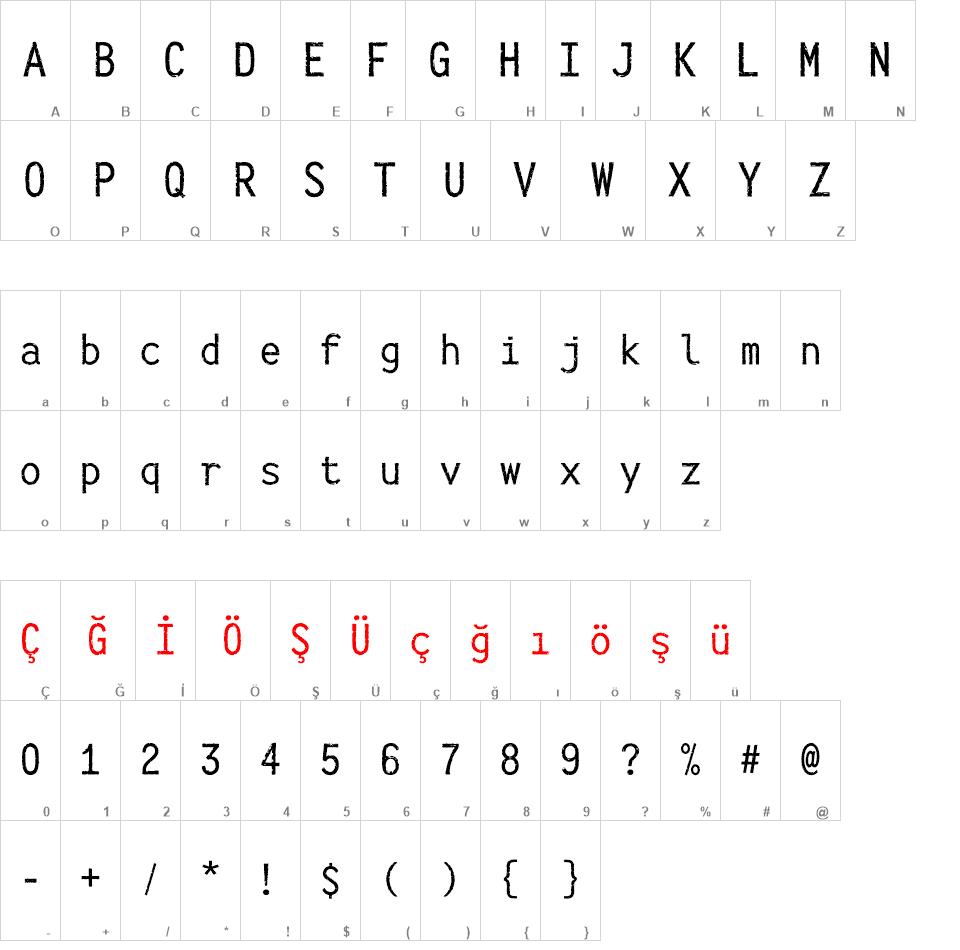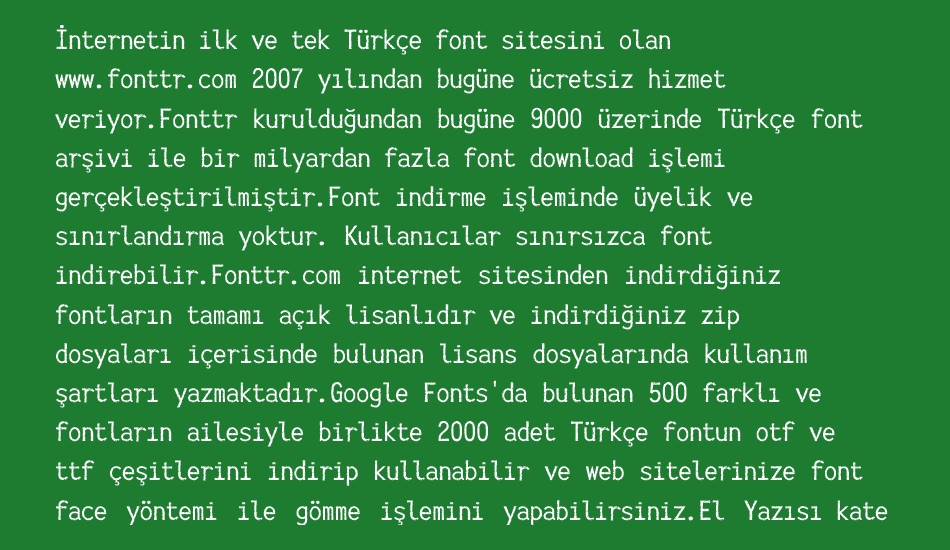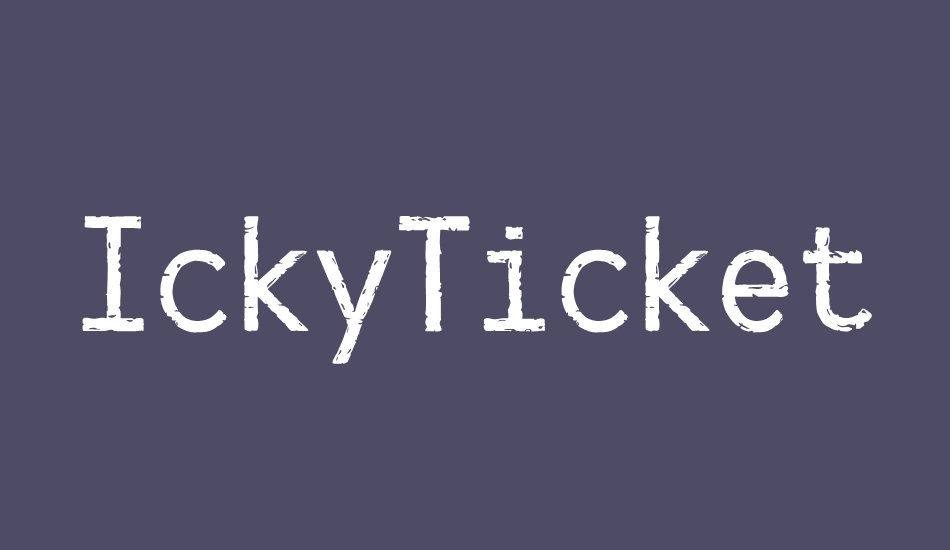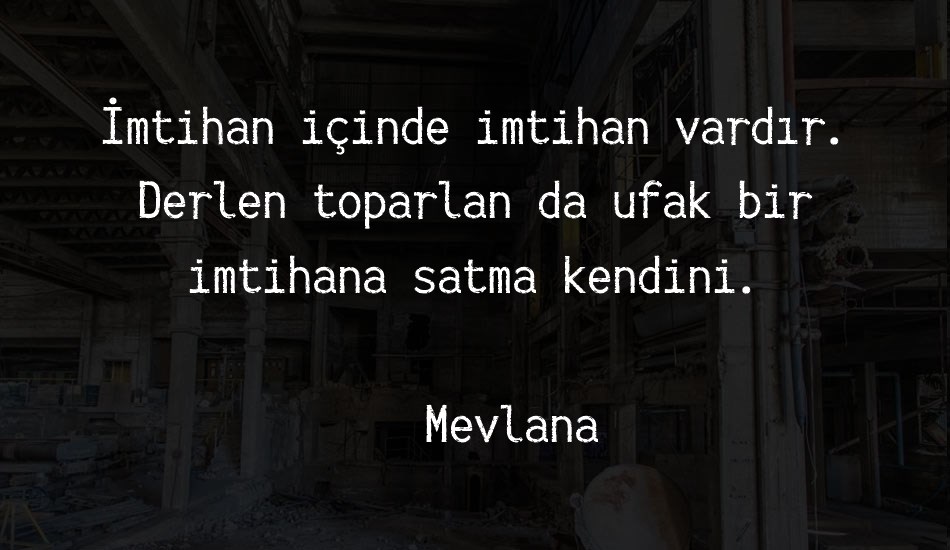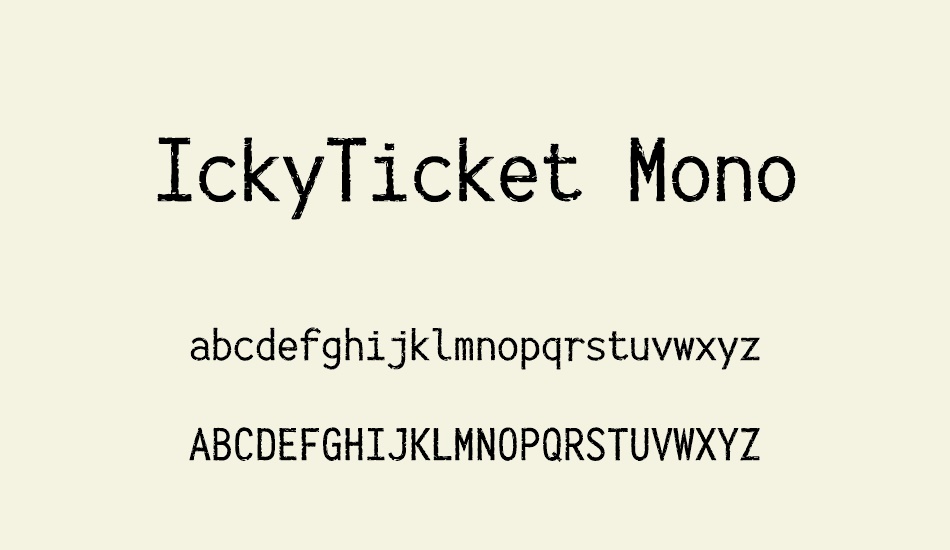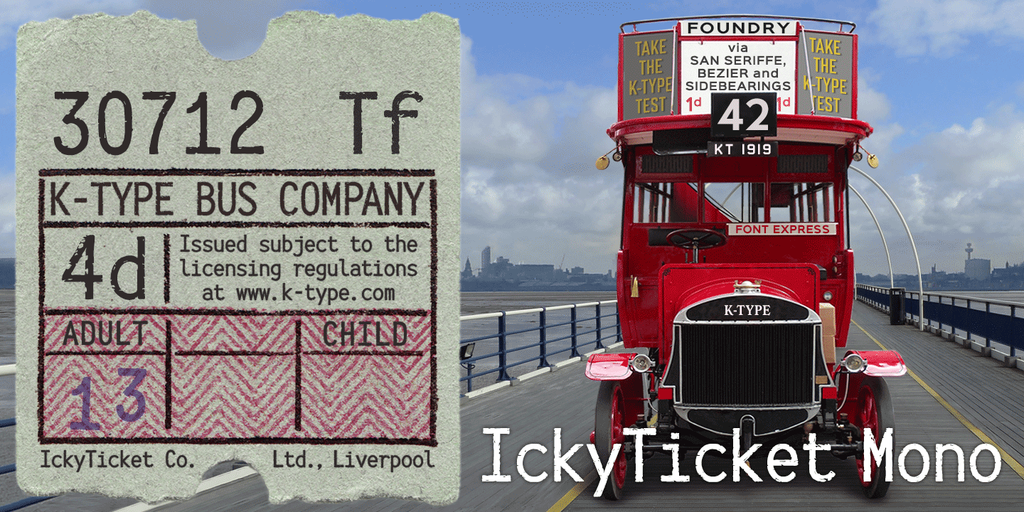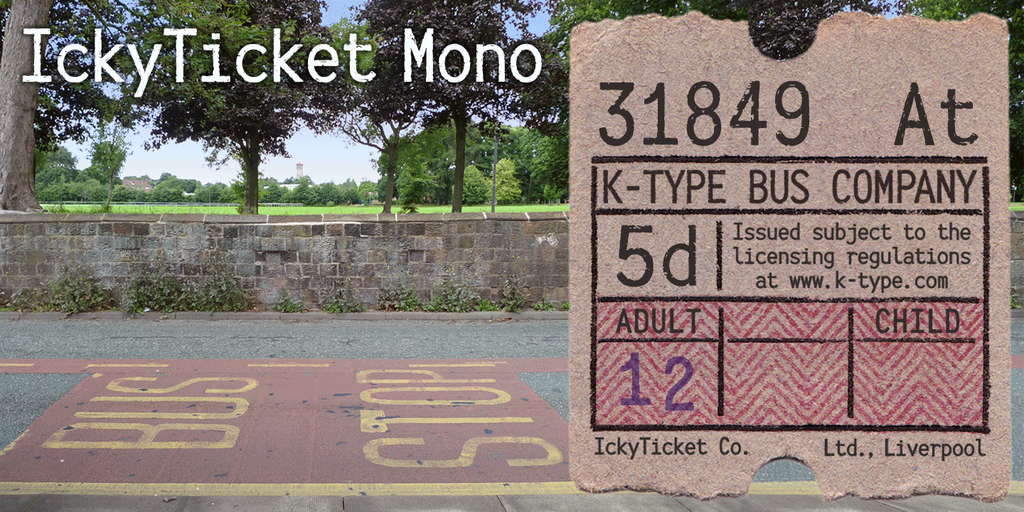
IckyTicket font
IckyTicket Mono is a monospaced font based on the coarsely printed numbering from 1960s bus tickets, and designed to simulate rough texture at smaller type sizes. The font contains a full complement of Latin Extended-A characters.
IckyTicket Mono font